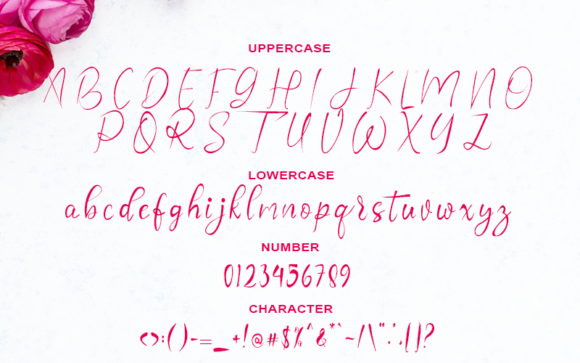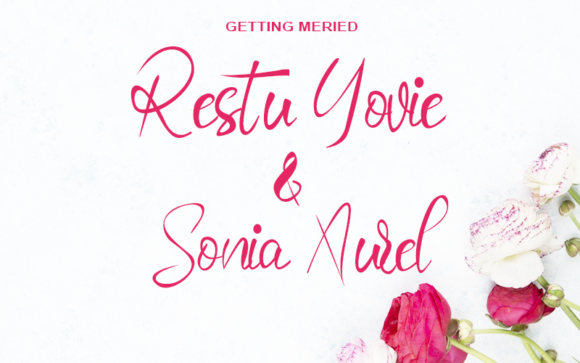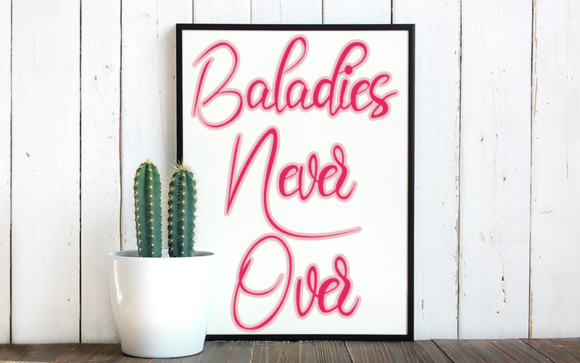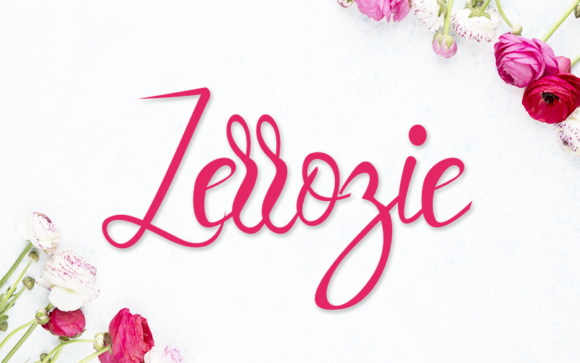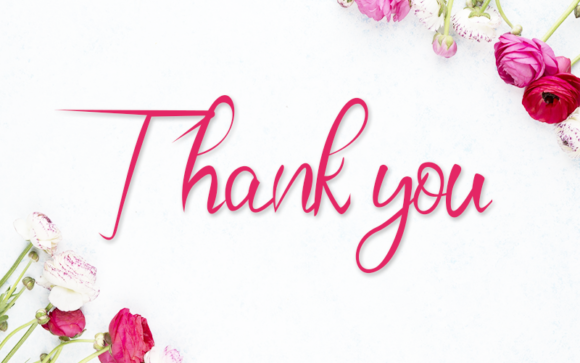
Introduction to Nastasya Font
Have you ever found yourself staring at a blank canvas, eager to bring your creative vision to life, only to be held back by the perfect font? For many designers, the right font can make all the difference in elevating a design from good to great. That’s where Nastasya Font comes in – a stunning, high-quality script font that’s as versatile as it is beautiful.
Whether you’re working on a design project for a transparent background or looking for a unique touch for your Instagram feed, Nastasya Font is an essential design resource that will take your creative project to the next level. With its gorgeous swashes and ligatures, this font is perfect for adding a personal touch to any design, from calligraphy scripts to DIY projects.
Key Features of Nastasya Font
- High-quality design resource ideal for creative projects, offering a unique and elegant aesthetic.
- Unique characteristics: This font features intricate details and subtle nuances, adding depth and sophistication to any design project.
Honest Review: Nastasya Font
As a designer, I’m always on the lookout for high-quality design resources that can elevate my creative projects. Recently, I came across the Nastasya Font, and I was excited to see how it would perform. After putting it to the test, I’m happy to share my honest review.
- The Nastasya Font features a beautiful, elegant design that’s perfect for creative projects.
Overall, I’m impressed with the Nastasya Font’s high quality and versatility. While it has some limitations, it’s a great design resource for creative projects, and I would definitely recommend it to fellow designers.